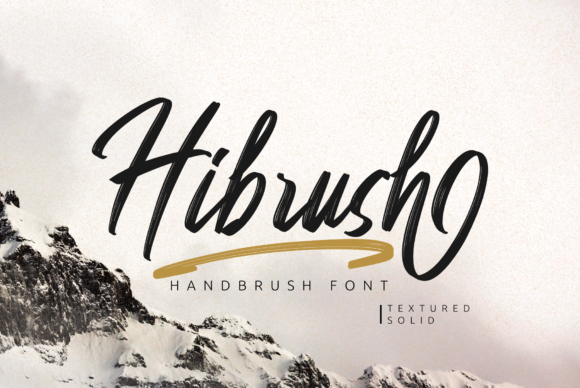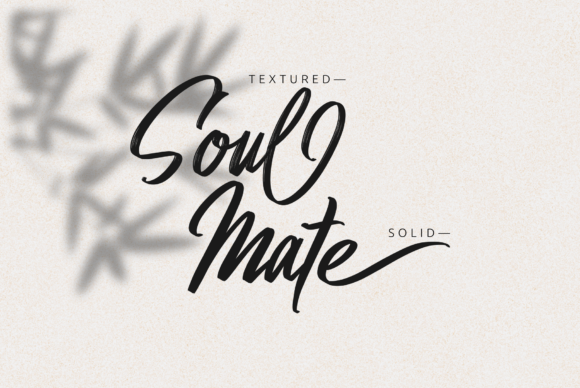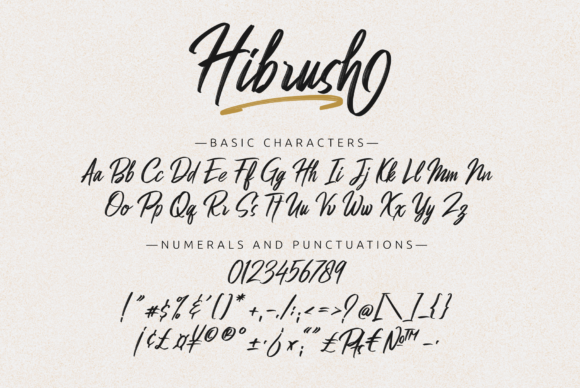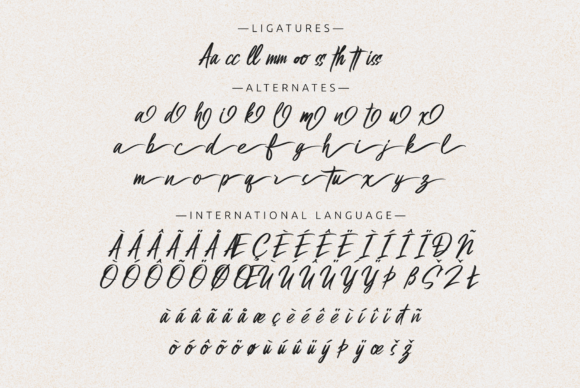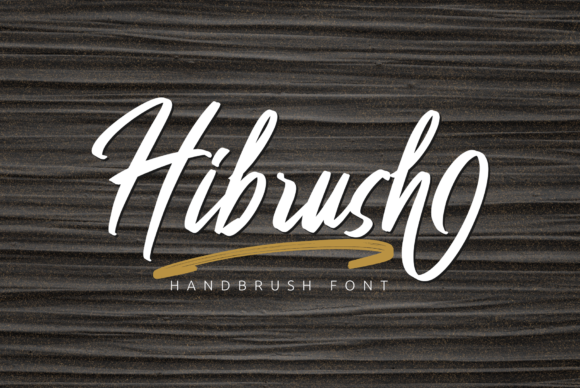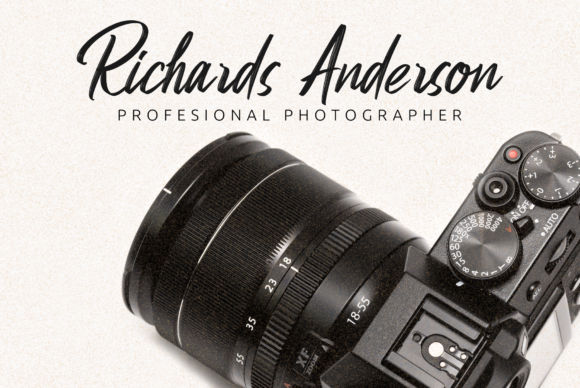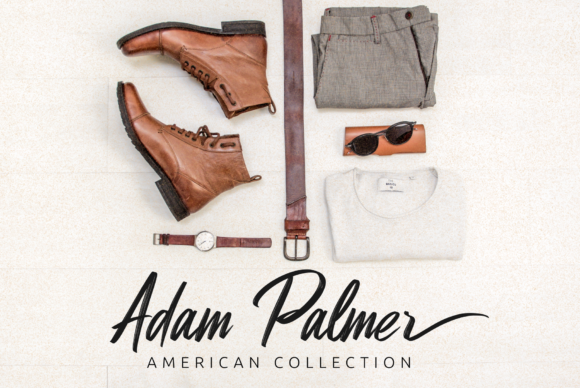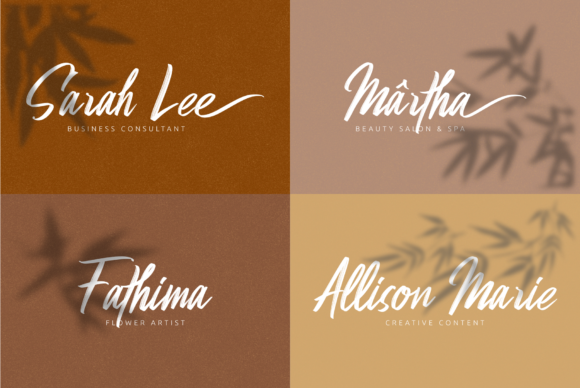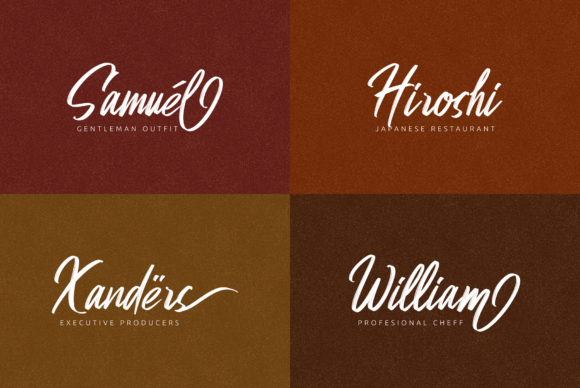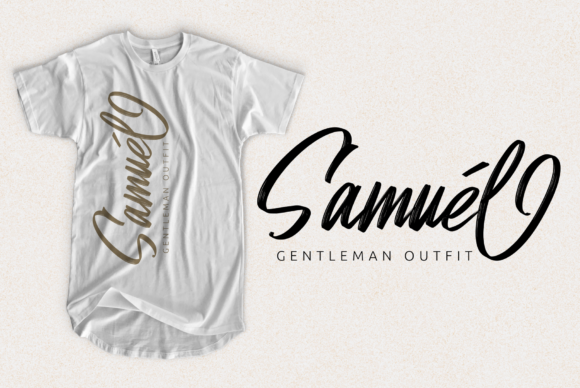
HomeScript FontsHibrush Font Script Fonts Hibrush Font FacebookXPinterestWhatsApp Hibrush Font Poster 2 Hibrush Font Poster 3 Hibrush Font Poster 4 Hibrush Font Poster 5 Hibrush Font Poster 6 Hibrush Font Poster 7 Hibrush Font Poster 8 Hibrush Font Poster 9 Hibrush Font Poster 10 Hibrush Font Poster 11 Hibrush Font Poster 12 Hibrush Font Poster 13 About Hibrush Font Hibrush is a unique and stylish script font with a distinctly modern vibe. Fall in love with its authentic vibe! DOWNLOAD NOW People also explored Miracle Justice Modern Casual Handwritten Script Font Friendship Font Expressway Soft Reindeer Font Gangnam Font Radiantly Font Adolescent Font Arabela Script Font Fiamond Font 406 0 TagsHibrush Font Previous articleSrikandy Script FontNext articleBelieves and Faith Font LEAVE A REPLY Cancel reply Comment: Please enter your comment! Name:* Please enter your name here Email:* You have entered an incorrect email address! Please enter your email address here Website: Save my name, email, and website in this browser for the next time I comment. Personal Use Free Unispace Personal Use Free Read more about this font Travelling Free Brush Personal Use Free Read more about this font Creativo Personal Use Free Read more about this font Blue Highway Personal Use Free Read more about this font BLOG Free Fonts Risk: Why Free Fonts Can Be Dangerous for Designers Free Fonts Risk: Why Free Fonts Can Be Dangerous for Designers Using free fonts is a common practice in web and graphic design. However, the... Top 10 Handwritten Fonts That Elevate Your Designs Free vs Paid Fonts: Why Investing in Premium Fonts Is Worth It Transform Your Website: Elevate Your Typography with 7 Best Web Font Generators